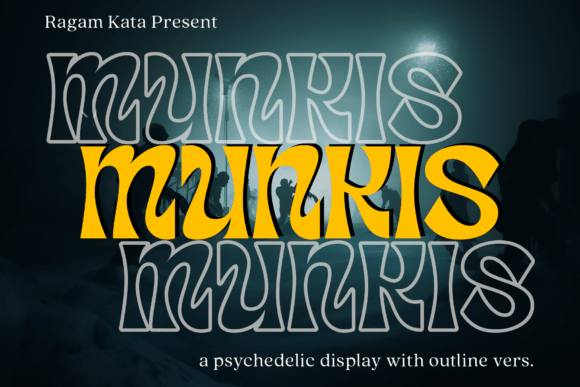
Munkis: A Retro Serif Font That Strengthens Your Brand
As a small business owner who designs my own labels, social posts, and packaging, I’ve learned that font choice isn’t just about aesthetics—it’s one of the fastest, most affordable ways to signal professionalism, personality, and consistency. That’s why Munkis has become a quiet workhorse in my branding toolkit. It’s a retro-themed serif font with character—think warm, slightly weathered, and unmistakably human—not sterile or overly digital. Its letterforms carry gentle contrast, soft serifs, and subtle irregularities that echo vintage print, but without sacrificing clarity.
Munkis belongs squarely in the display font category, meaning it shines brightest where impact matters most: logos, product names, signage, banners, and hero text. It’s not built for long paragraphs—but that’s exactly why it works so well for small business touchpoints where attention is short and first impressions are everything. Whether you’re printing a candle label, designing a café menu board, or crafting an Instagram story for your handmade soap line, Munkis adds instant visual distinction while feeling intentional, not gimmicky.
I use Munkis as a headline and accent font across nearly all my customer-facing materials. On product labels, it gives my botanical skincare line a grounded, artisanal feel—especially when paired with a clean sans serif for ingredients and usage instructions. For my online shop’s homepage banner, Munkis sets the tone before a single word is read. And on thank-you cards tucked into orders? It transforms a simple note into something tactile and memorable. Even on mobile screens, its strong letter shapes hold up beautifully in thumbnails and Stories—no pixelation, no ambiguity.
Consistency is where Munkis truly pays off. When your logo, packaging, website banner, and social media graphics all share the same distinctive display font, customers begin to recognize your brand by shape and rhythm—not just color or imagery. That recognition builds trust. A boutique owner told me she switched from a generic script font to Munkis for her clothing tags and window signage—and within weeks, customers started commenting, “I knew it was yours just from the letters.” That’s the power of a cohesive, well-chosen typeface.
Real-world readability matters, too. Unlike some decorative fonts that blur at small sizes, Munkis remains legible down to 14–16pt on printed product labels—even on textured kraft paper or matte stickers. Its generous x-height and open counters (the enclosed spaces inside letters like ‘e’ or ‘a’) prevent ink fill-in during printing. And because it’s a serif font with classic proportions, it feels familiar and approachable to a broad audience—not trendy in a way that dates quickly.
Here’s how I apply it across common small business uses:
- Logos & storefront signage: Munkis anchors my brand name with warmth and authority—ideal for cafés, bookshops, or wellness studios wanting timeless appeal.
- Packaging & product labels: Used for flavor names (“Honey Lavender,” “Smoked Sea Salt”) or collection titles—never for fine print, but always for what customers notice first.
- Social media graphics: Perfect for quote cards, limited-edition announcements, or seasonal campaign headers on Instagram and Pinterest.
- Websites & email headers: Applied sparingly in H1s, hero sections, or CTA buttons—always paired with a neutral body font for balance.
- Printed collateral: Flyers, menus, and postcards gain instant charm without looking costumed or kitschy.
Pairing Munkis thoughtfully makes all the difference. I almost always combine it with a clean, highly readable sans serif—like Inter, Poppins, or Montserrat—for body text, captions, and contact info. This contrast lets Munkis breathe and do its job: attract attention and convey mood—while the supporting font handles clarity and function. For a more refined look, try pairing it with a quiet, elegant serif like Lora or Merriweather for longer-form web copy or printed brochures. Avoid stacking it with other decorative or script fonts—they compete instead of complement.
Before committing Munkis across your entire brand, test it in context. Type out your business name, tagline, and a real product descriptor. Print it at actual label size. View it on your phone’s lock screen. Paste it into a Canva template for an Instagram post. Does it still feel like *you*? Does it reflect the experience you want customers to have? If you sell minimalist ceramics, Munkis may feel too expressive. But if your brand leans into nostalgia, craft, or storytelling—like a record store, indie bookstore, or heritage food brand—it often clicks immediately.
At its core, Munkis isn’t about chasing trends. It’s about choosing a display font that quietly reinforces your values—authenticity, care, craftsmanship—across every surface your customers touch. It doesn’t shout. It invites. And in a crowded marketplace where small businesses compete on connection more than scale, that kind of thoughtful consistency is worth far more than a flashy design trend.